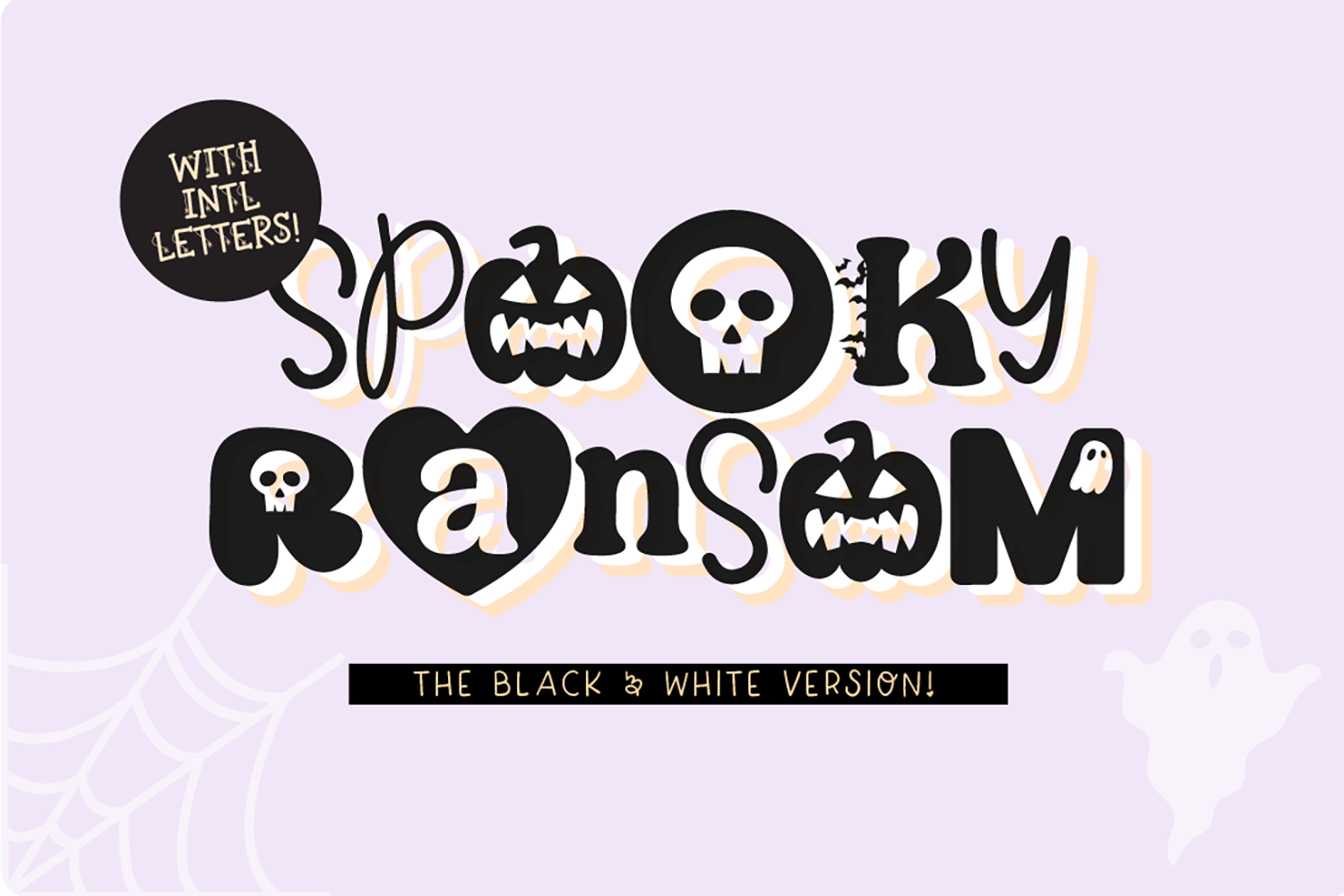
This is the single-layer B&W version (only) of our color font family "Spooky Ransom".
It will be titled "SpookyRansomBW" in your library. Includes intl characters and different characters for upper and lowercase. It also includes numbers and punctuation.